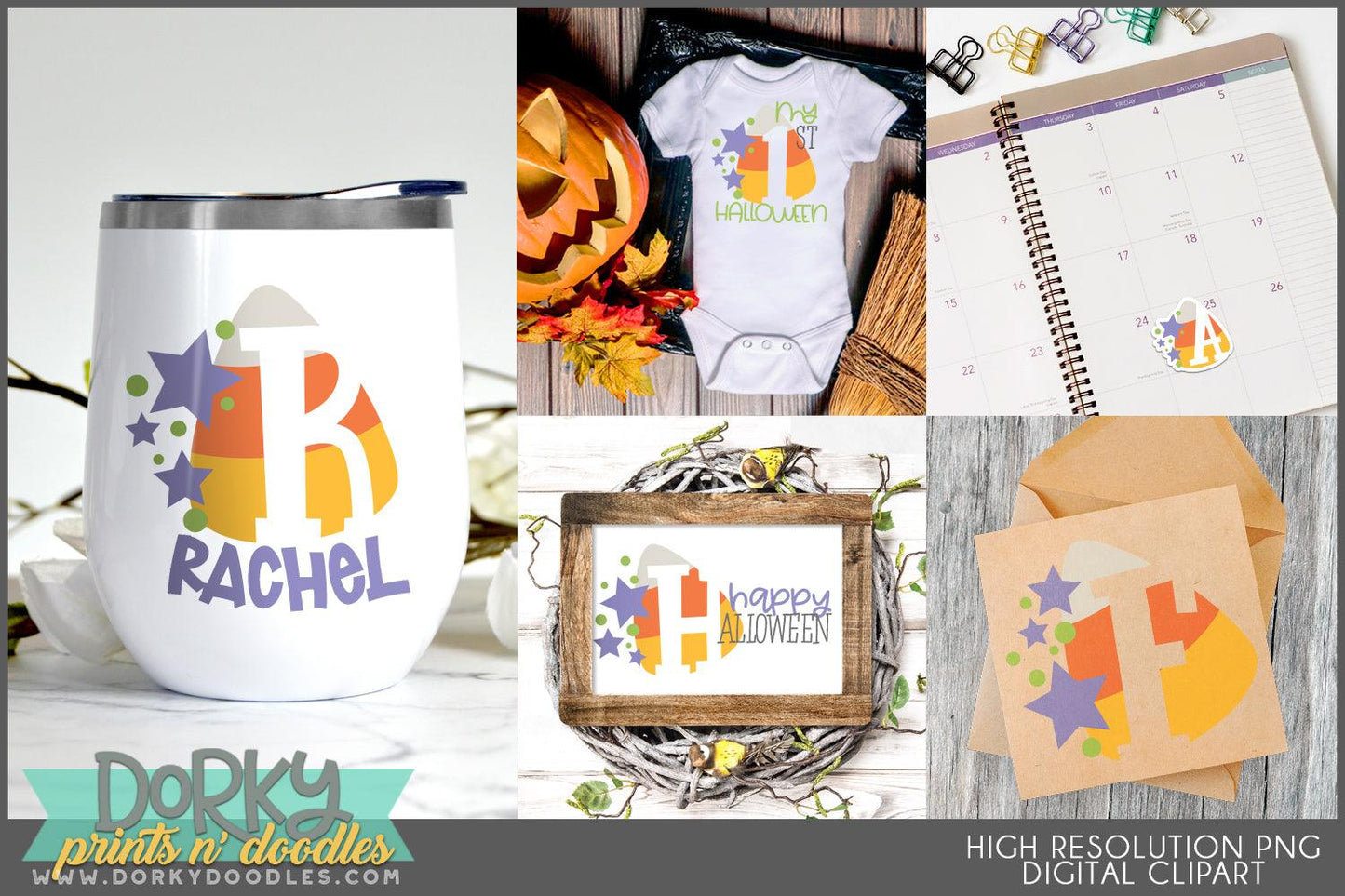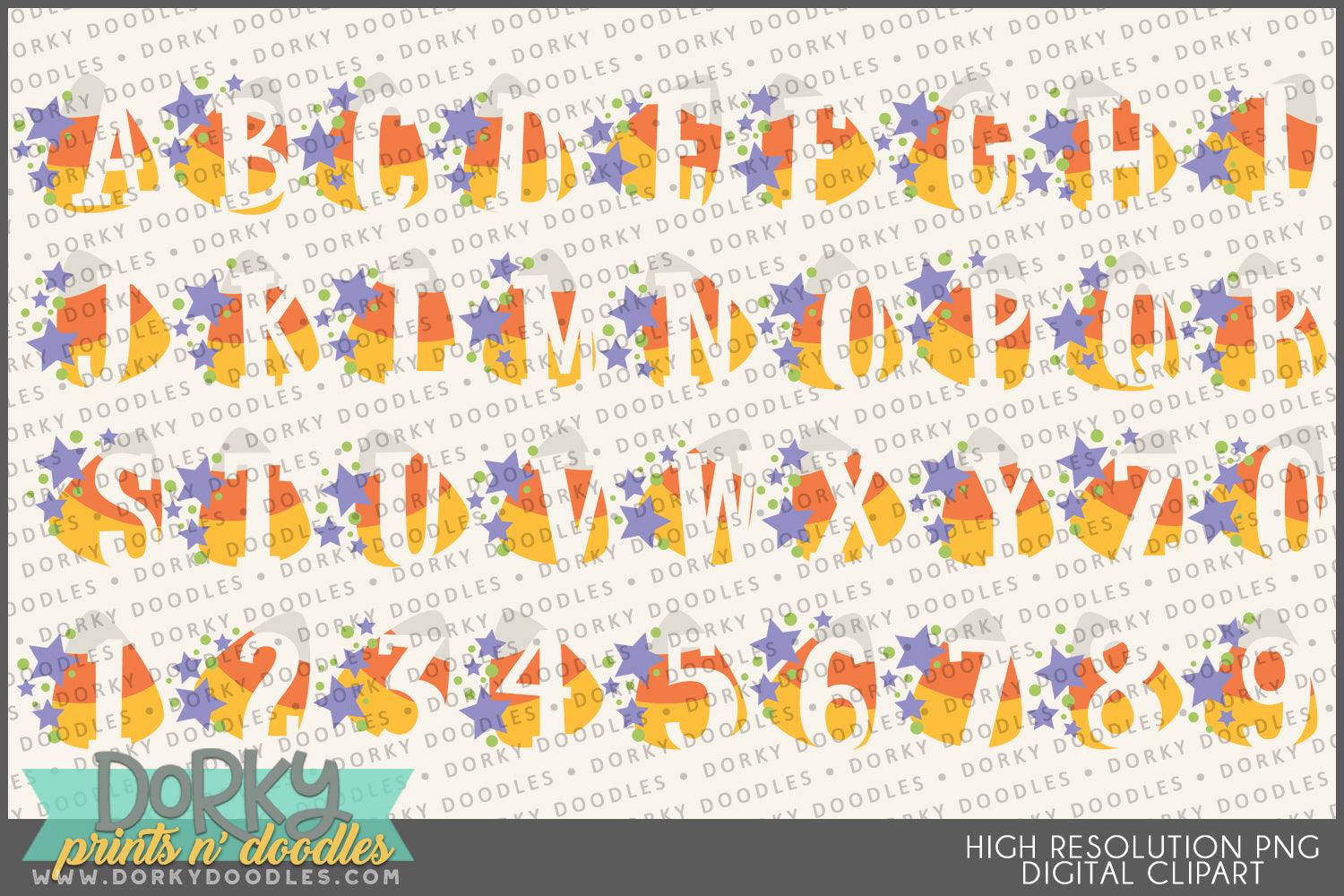
Candy Corn Alphabet Clipart
These cute Halloween candy corn alphabet and number images look fabulous in scrapbooks, planners, party invitations, cookies, stickers, and decor! You will get 6 Digital Clip Art images in high resolution PNG format (they come as a ZIP file that you can download instantly once payment has cleared).
• letters A-Z featuring candy corn and stars
• numbers 0-9 featuring Halloween candy